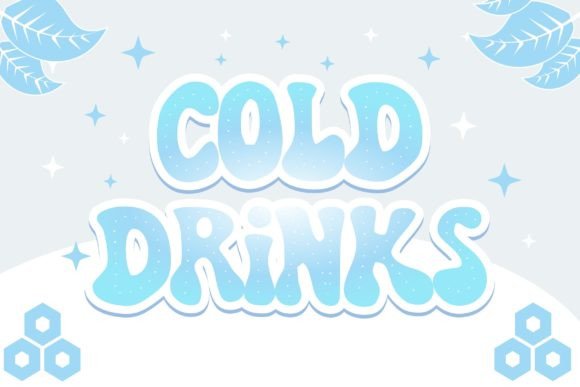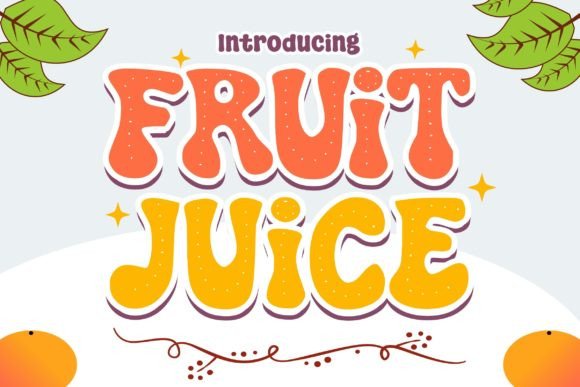
Introducing Fruit Juice: The Ultimate Font for Adding a Touch of Fun to Your Designs
Are you tired of using the same old fonts in your designs? Do you want to add a touch of joy and imagination to your projects? Look no further than Fruit Juice, a vibrant and playful font that’s perfect for designers and crafters who want to make their work stand out. In this article, we’ll take a closer look at Fruit Juice and explore its features, benefits, and uses.
A Font that Evokes Joy and Imagination
Fruit Juice is more than just a typeface – it’s an experience. With its cheerful character and adorable charm, this font is designed to evoke feelings of joy and imagination. Whether you’re working on a project for a children’s party, a birthday celebration, or just want to add some fun to your design, Fruit Juice is the perfect companion.
One of the key features of Fruit Juice is its unique and playful design. The font’s rounded edges and irregular shapes give it a hand-drawn feel that’s both whimsical and charming. This makes it perfect for designs that need a touch of personality and fun.
Perfect for Titles and Posters
Fruit Juice is particularly well-suited for use in titles and posters. Its bold and playful design makes it easy to read and attention-grabbing, ensuring that your message gets noticed. Whether you’re creating a poster for a event, a title for a blog post, or a heading for a website, Fruit Juice is a great choice.
One of the benefits of using Fruit Juice in titles and posters is its ability to add a touch of whimsy and fun. The font’s playful design helps to create a lighthearted and celebratory feel, making it perfect for designs that need to convey a sense of excitement and joy.
Adding a Touch of Fun to Your Designs
Fruit Juice is a versatile font that can be used in a wide range of designs, from party invitations to website headers. Its playful design makes it perfect for adding a touch of fun to any project, and its bold and easy-to-read style ensures that your message gets noticed.
One of the best things about Fruit Juice is its ability to be used in a variety of contexts. Whether you’re designing for print or digital, this font is sure to delight and entertain. Its unique and playful design makes it perfect for designs that need to stand out and make a statement.
Features and Benefits of Fruit Juice
So what makes Fruit Juice such a great font? Here are just a few of its key features and benefits:
- Playful design: Fruit Juice has a unique and playful design that’s perfect for adding a touch of fun to your designs.
- Bold and easy to read: The font’s bold and easy-to-read style makes it perfect for titles, posters, and headings.
- Versatile: Fruit Juice can be used in a wide range of designs, from party invitations to website headers.
- Unique and charming: The font’s hand-drawn feel and irregular shapes give it a unique and charming personality.
Using Fruit Juice in Your Designs
So how can you use Fruit Juice in your designs? Here are a few ideas to get you started:
- Party invitations: Use Fruit Juice to create fun and playful party invitations that set the tone for a celebratory event.
- Website headers: Add a touch of fun to your website with Fruit Juice, perfect for headers, titles, and other design elements.
- Posters: Use Fruit Juice to create eye-catching posters that grab attention and convey a sense of excitement and joy.
- Social media graphics: Add a touch of personality to your social media graphics with Fruit Juice, perfect for creating fun and engaging content.
In conclusion, Fruit Juice is a vibrant and playful font that’s perfect for designers and crafters who want to add a touch of fun to their designs. With its unique and charming design, bold and easy-to-read style, and versatility, Fruit Juice is a great choice for a wide range of projects. Whether you’re creating party invitations, website headers, posters, or social media graphics, Fruit Juice is sure to delight and entertain. So why not give it a try and see how it can add a touch of joy and imagination to your designs?